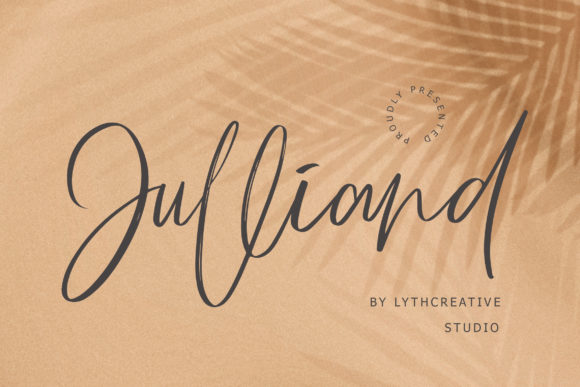
Julliand Font: A Beautiful Handwritten Font for Your Design Needs
Are you looking for a font that can add a touch of elegance and sophistication to your designs? Look no further than Julliand Font. This beautiful handwritten font is incredibly versatile and can be used to create spectacular designs for a variety of projects. In this article, we’ll take a closer look at Julliand Font and explore its features, benefits, and uses.
Features of Julliand Font
Julliand Font is a modern handwritten font that is designed to be both elegant and versatile. Some of its key features include:
- Beautiful Handwritten Style: Julliand Font has a beautiful handwritten style that is perfect for creating designs that require a personal touch.
- Versatile: This font is incredibly versatile and can be used for a variety of design projects, including logos, branding, packaging, and more.
- Easy to Read: Julliand Font is easy to read, even at small sizes, making it perfect for use in body text.
- Supports Multiple Languages: This font supports multiple languages, making it a great choice for designers who work with clients from around the world.
Benefits of Using Julliand Font
There are many benefits to using Julliand Font in your designs. Some of the most significant advantages include:
- Adds a Personal Touch: Julliand Font’s handwritten style adds a personal touch to your designs, making them stand out from the crowd.
- Perfect for Branding: This font is perfect for branding projects, as it can help to create a unique and memorable identity for your clients.
- High-Quality: This font is of high quality, with clean lines and a professional finish.
Uses of Julliand Font
Julliand Font is a versatile font that can be used for a variety of design projects. Some of the most popular uses include:
- Logos and Branding: Julliand Font is perfect for creating logos and branding materials, such as business cards and letterheads.
- Packaging Design: This font can be used to create eye-catching packaging designs that stand out on store shelves.
- Web Design: Julliand Font can be used to create beautiful web designs, including website headers and body text.
- Social Media Graphics: This font can be used to create social media graphics, such as Facebook posts and Instagram stories.
Tips for Using Julliand Font
Here are some tips for using Julliand Font in your designs:
- Use it Sparingly: Julliand Font is a beautiful font, but it can be overwhelming if used too much. Use it sparingly to create a focal point in your design.
- Experiment with Colors: This font looks great in a variety of colors, so don’t be afraid to experiment and find the perfect color for your design.
- Pair it with Other Fonts: Julliand Font can be paired with other fonts to create a unique and interesting design.
- Make it Bold: Don’t be afraid to make Julliand Font bold to create a statement piece in your design.
Julliand Font is a beautiful handwritten font that is perfect for designers who want to add a touch of elegance and sophistication to their designs. With its versatile style and easy-to-read design, this font is perfect for a variety of projects, from logos and branding to packaging design and web design. Whether you’re a professional designer or just starting out, Julliand Font is a great choice for your next design project.